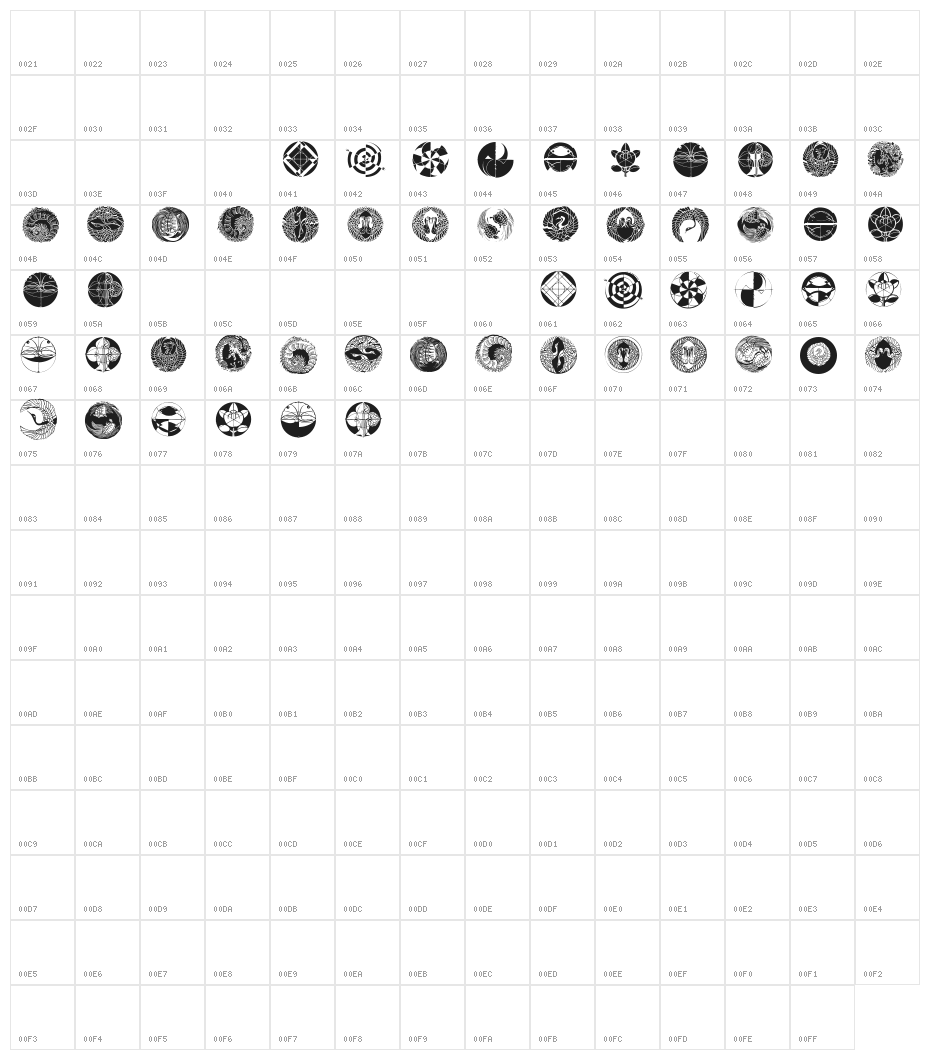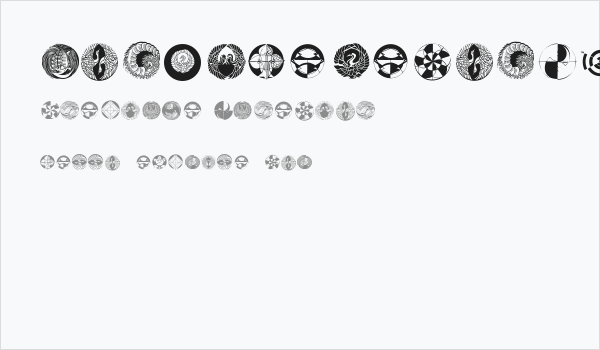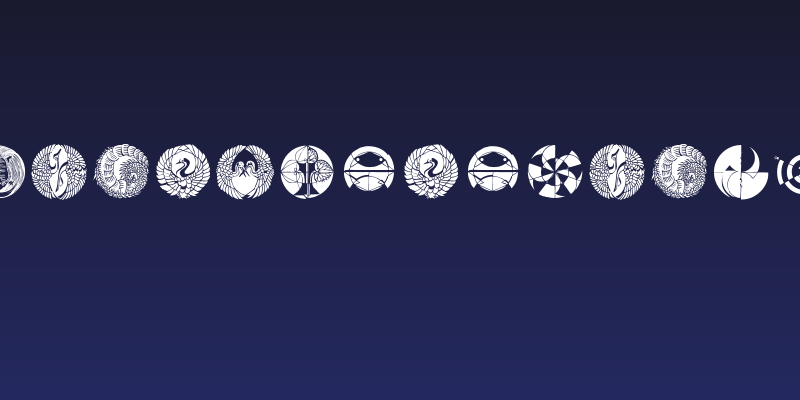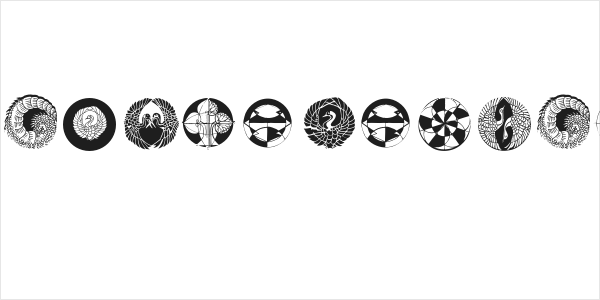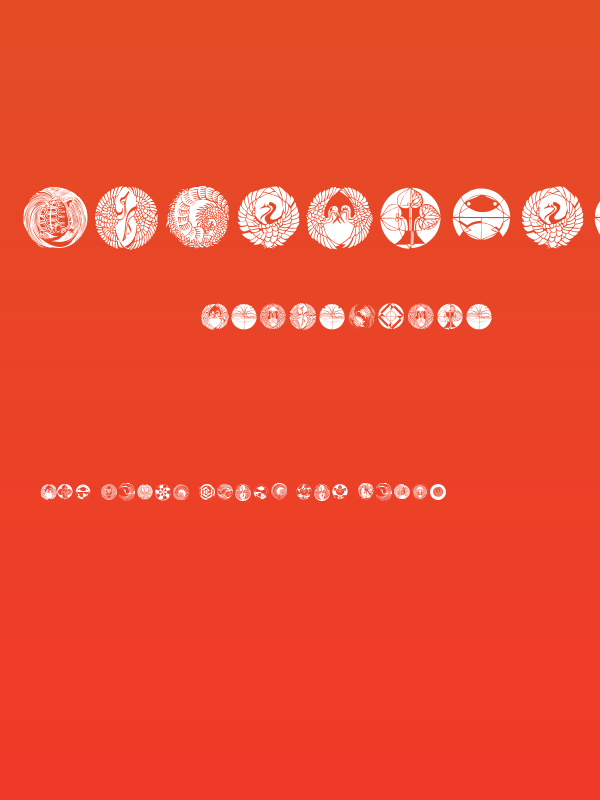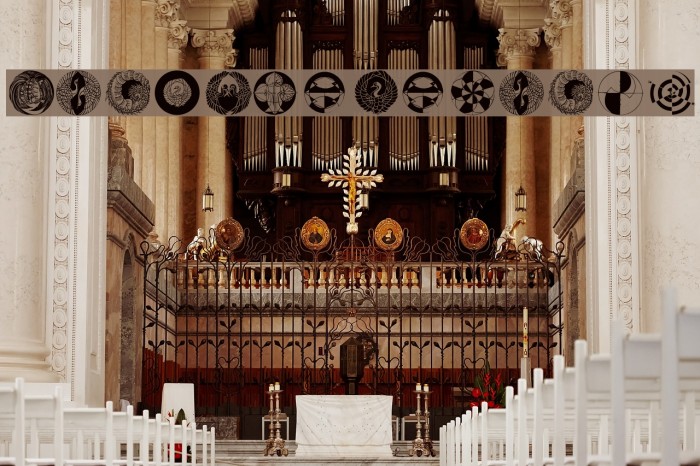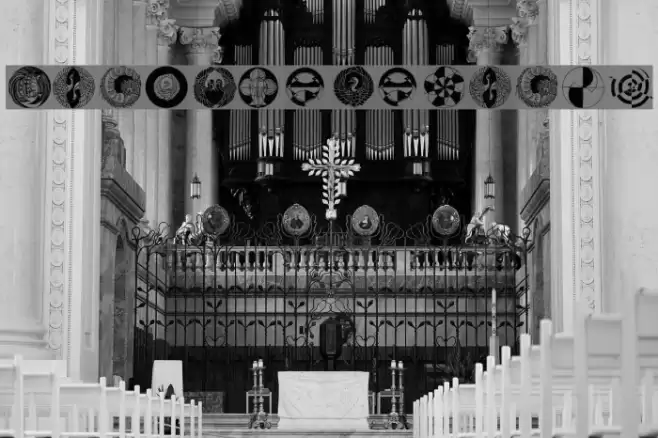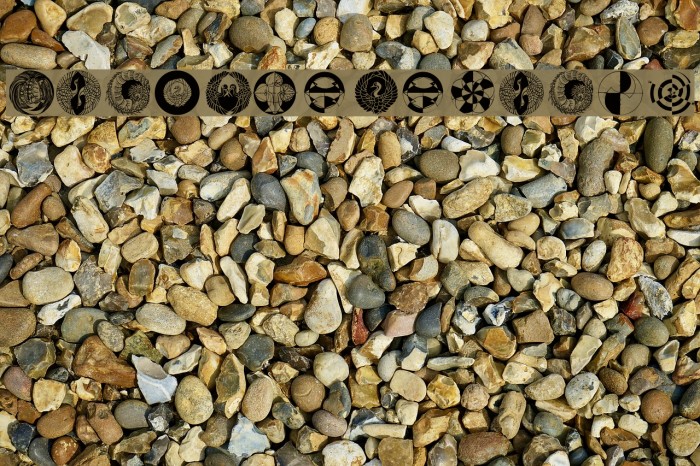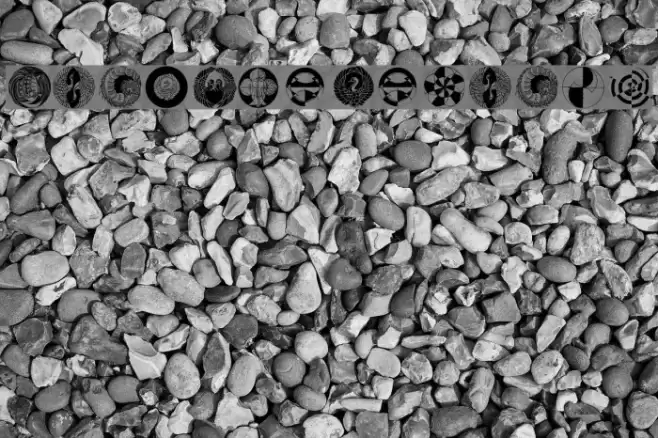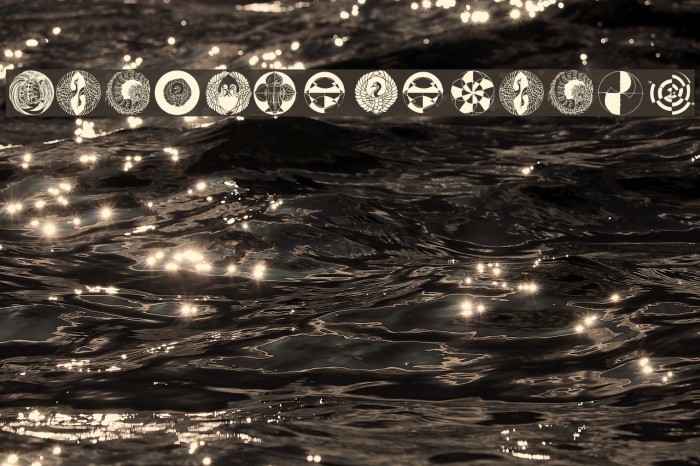
MonsTheSecondB Font
MonsTheSecondB Description
A decorative display set featuring intricate, circular emblem designs inspired by traditional Japanese crests (kamon), each glyph rendered as a unique, highly detailed black-and-white illustration rather than standard alphanumeric characters.
| Overall Style | Decorative, Traditional, Artistic |
| Use Case | Logos, Decorative initials, Thematic graphics |
| Proposed Projects | Branding, packaging, posters, book covers, decorative elements, cultural or historical projects. |